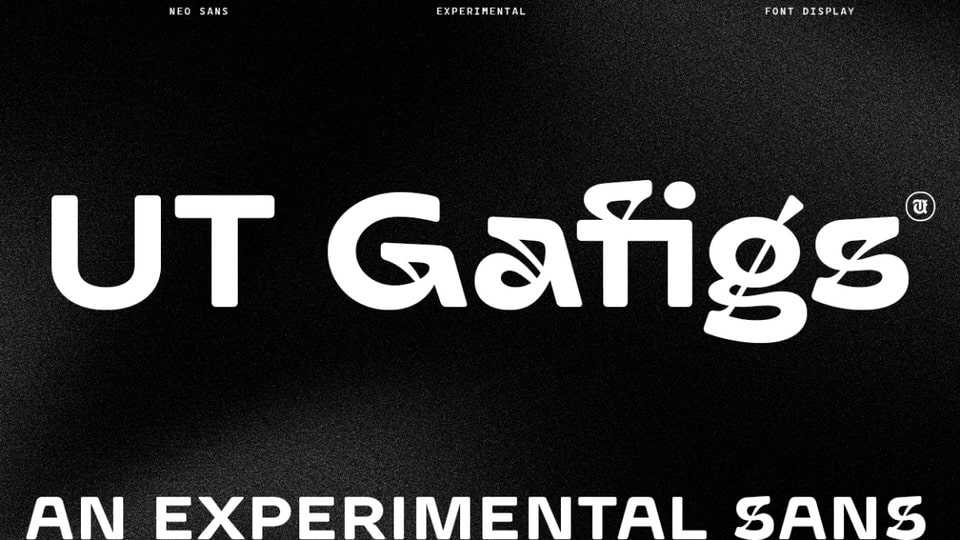
Download UT Gafigs font, an experimental sans-serif typeface that breaks the rules of traditional typography. This font is a must-have for graphic designers and creatives seeking to make a bold statement.
Designer: Universitype Foundry